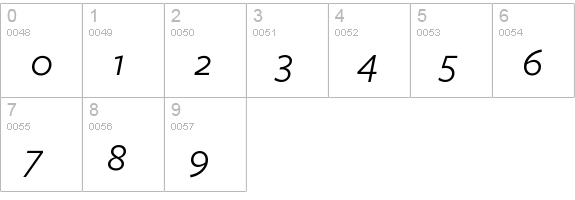
FreightSans BookItalic is a sleek and modern font that combines elegance with readability. Its italicized style adds a touch of sophistication to any design project. The flowing curves and sharp angles of FreightSans BookItalic make it perfect for conveying a sense of motion and energy. Whether used for headlines, body text, or logos, this font exudes a sense of professionalism and style. What makes FreightSans BookItalic even more appealing is that it is available for free download at FontsMarket.com. This means that you can easily access this high-quality font to enhance your creative projects without any cost. Don't miss out on the opportunity to add FreightSans BookItalic to your font collection and elevate your design work to the next level.